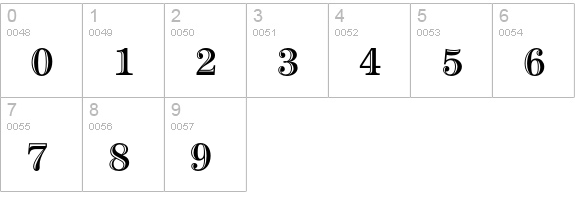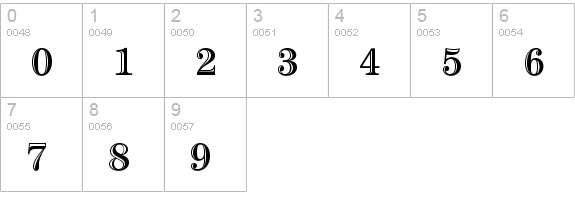
CenturyHandtEF-Bold Font Details
CenturyHandtEF-Bold is a strong, high-contrast variant in the CenturyHandtEF typeface family \xE2\x80\x94 well suited to headlines, attention-grabbing titles, and strong calls-to-action.
CenturyHandtEF-Bold is a modern and stylish font that offers a perfect blend of sophistication and creativity. With its bold and eye-catching appearance, this font is ideal for making a statement in various design projects. Whether you are creating posters, logos, or invitations, CenturyHandtEF-Bold will add a touch of elegance and flair to your designs. The font is characterized by its clean lines and sharp edges, making it highly readable and versatile. Its bold weight gives it a strong presence on the page, commanding attention and making a lasting impression. CenturyHandtEF-Bold is perfect for headlines, titles, and any other text that needs to stand out. Best of all, CenturyHandtEF-Bold is available for free download at FontsMarket.com. This means you can easily access this stylish font and use it in your projects without any cost. Don't miss the opportunity to enhance your designs with the elegant and bold CenturyHandtEF-Bold font, now available for free at FontsMarket.com!